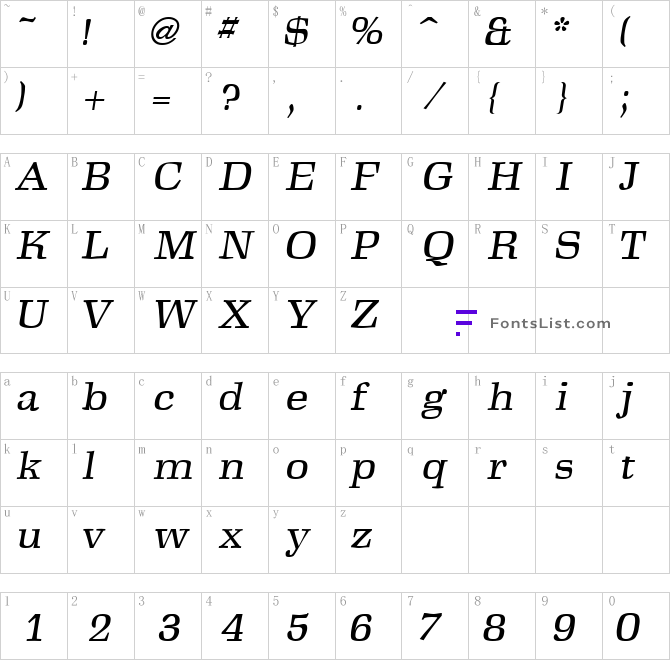
- Font Name:Antikva
Antikva-Italic.ttf is a very beautiful artistic font, Antikva-Italic.ttf is widely used in the design and printing of various books and pictures,Antikva-Italic.ttf has a strong visual impact,Antikva-Italic.ttf is a commonly used font in newspapers, magazines and books, and is used in posters, e-commerce Poster design, store design, logo design, font design and other fields.Antikva-Italic.